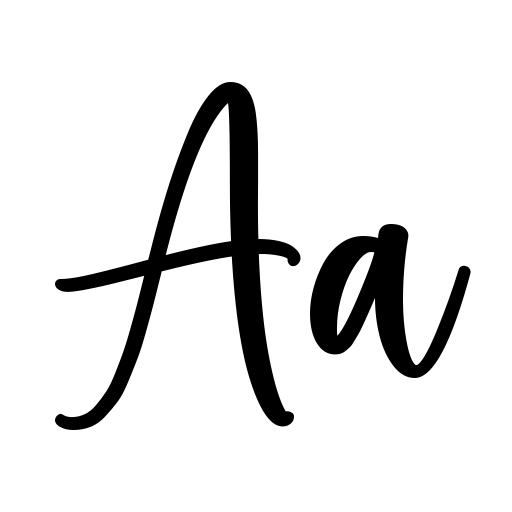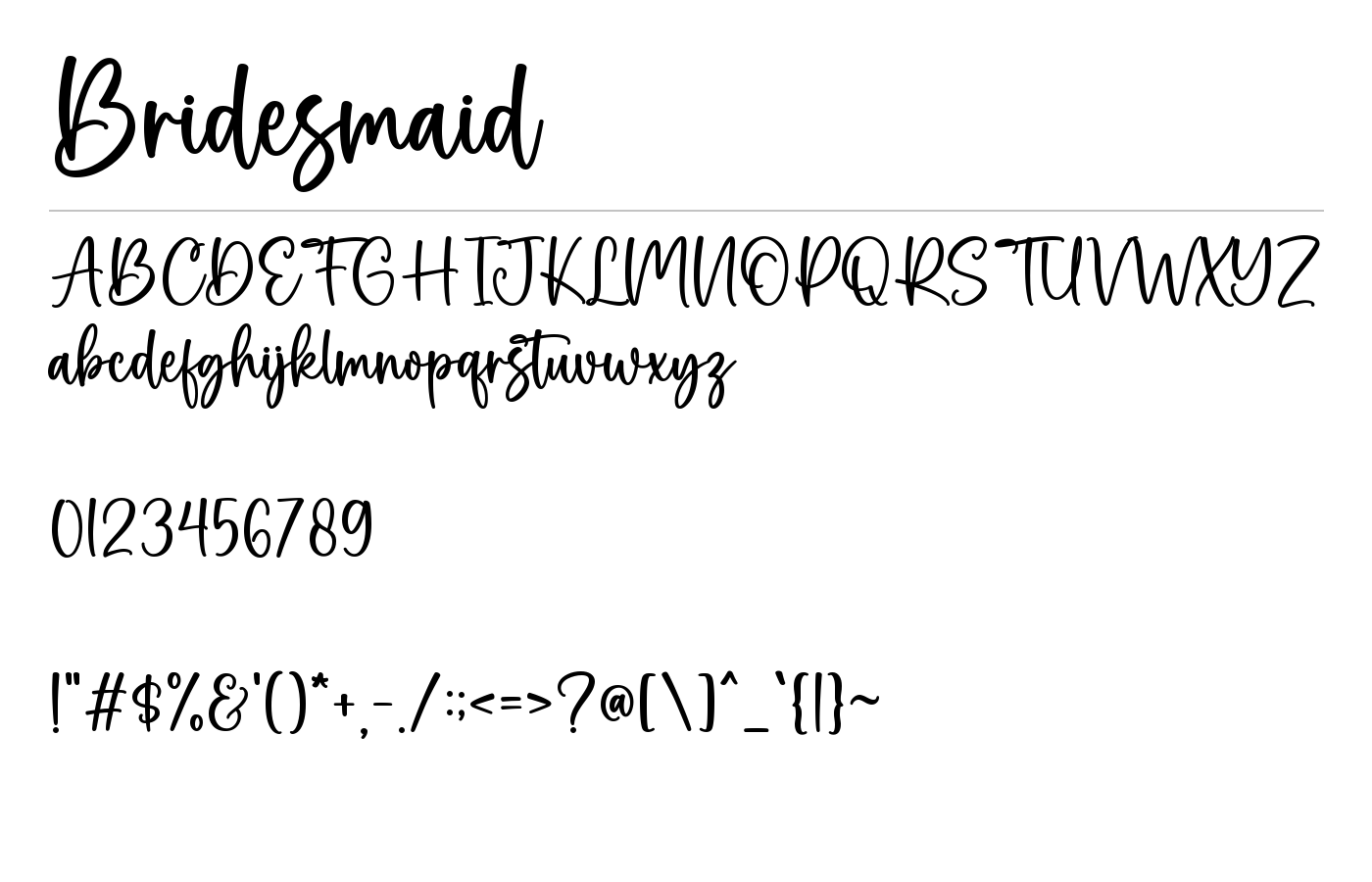
Bridesmaid is a casual, hand-lettered script font with a friendly and modern feel. It features smooth, flowing strokes with a lively bounce and a mix of tall uppercase letters and rounded lowercase forms, making it perfect for invitations, branding, and creative projects that need a personal, warm touch. Its clean and approachable style works well in both digital and print designs, especially for wedding or lifestyle themes.
Bridesmaid Font
About Bridesmaid Font